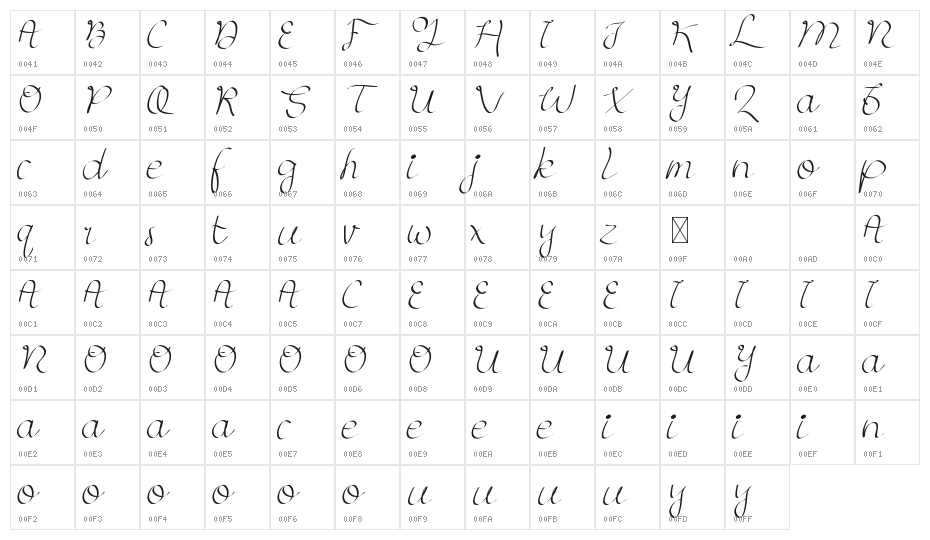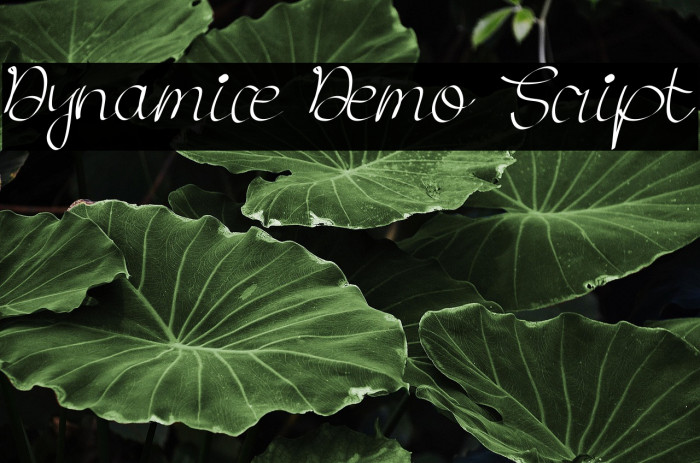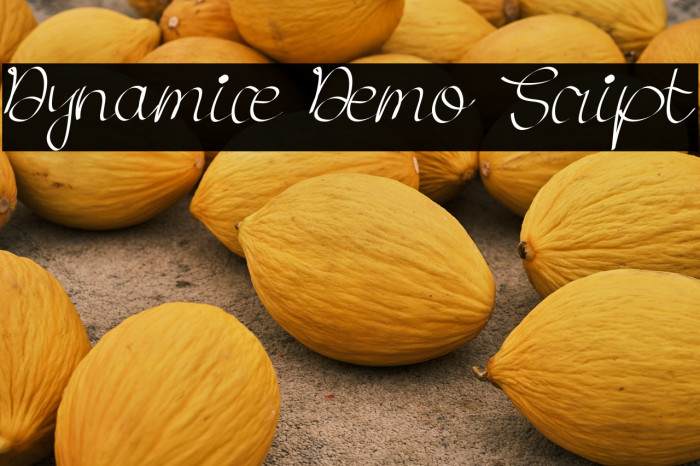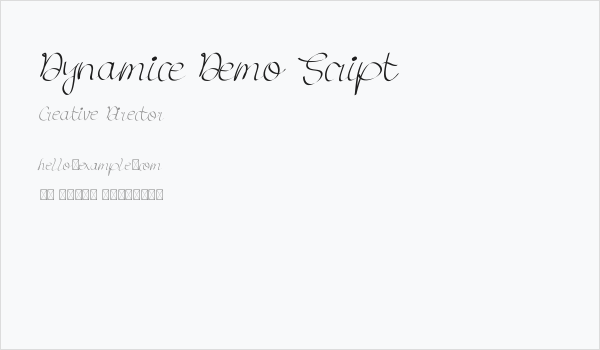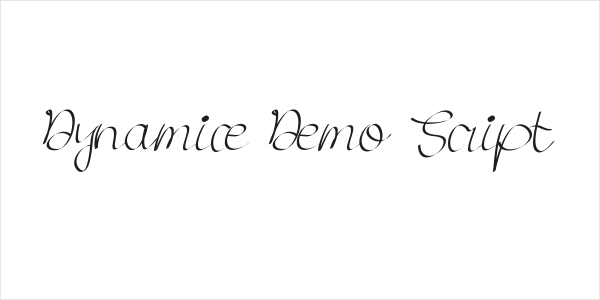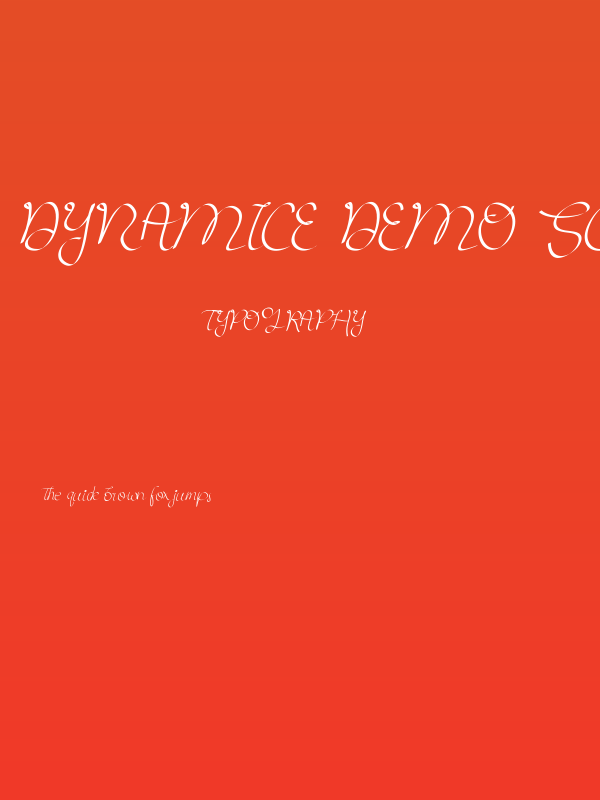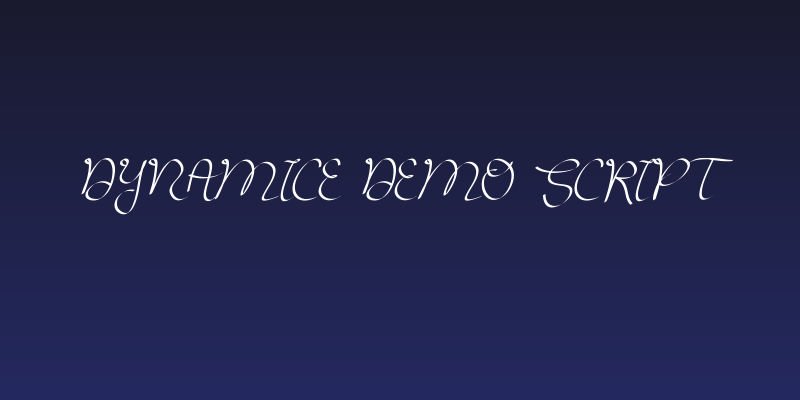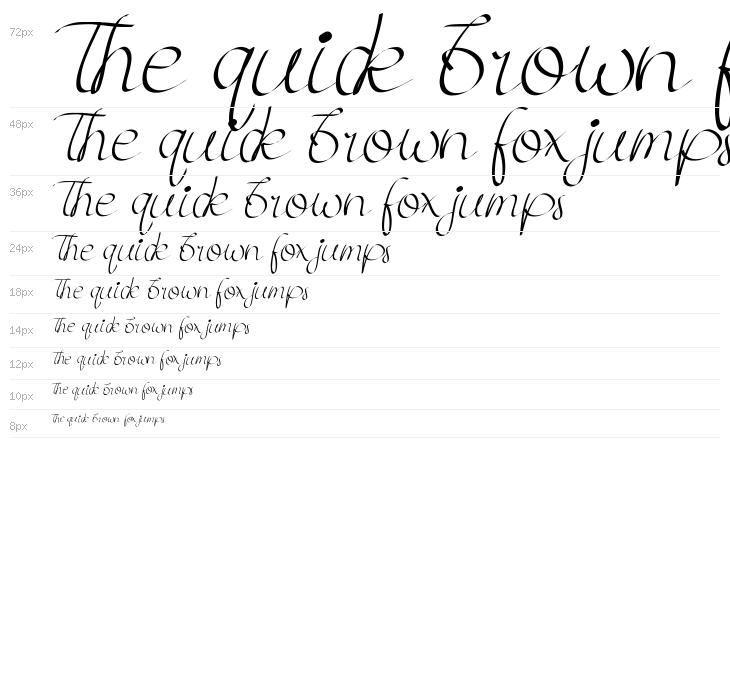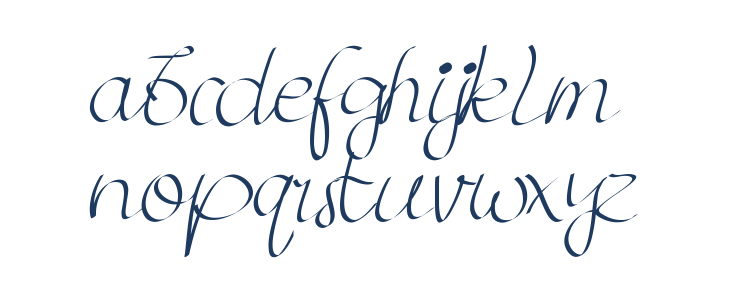
Dynamice Demo Script Font
Dynamice Demo Script Description
This elegant script font features fluid, cursive strokes that convey a sense of sophistication and grace. The characters are connected with smooth, flowing lines, creating a harmonious and continuous appearance. The uppercase letters are slightly more ornate, with flourishes that add a touch of flair, while the lowercase letters maintain a consistent rhythm. The font's design is both artistic and legible, making it suitable for a variety of creative applications. Its delicate curves and loops give it a dynamic and lively feel, perfect for projects that require a personal or artistic touch.
| Overall Style | Elegant, Artistic |
| Use Case | Logos, Invitations, Decorative text |
| Proposed Projects | Ideal for wedding invitations, greeting cards, branding, and elegant logo designs. |